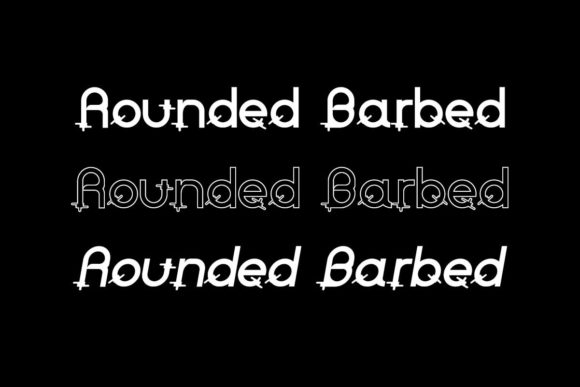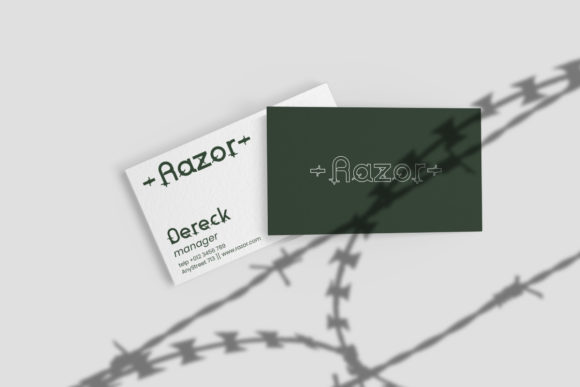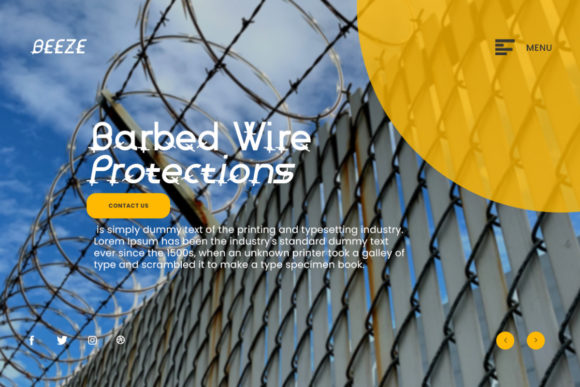
Introduction to Rounded Barbed Font
Rounded Barbed is a cool and modern looking display font.
Whether you’re using it for crafting, digital designing, presentations or greeting cards making, it’s perfect .
Why Choose Rounded Barbed Font?
Rounded Barbed Font offers exceptional quality and versatility, making it a valuable addition to your design toolkit. Whether you’re creating for personal projects or commercial use, Rounded Barbed Font delivers professional results.